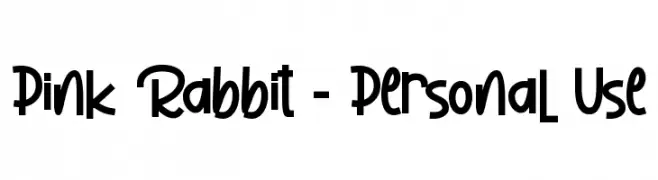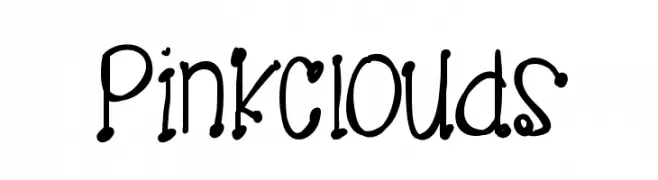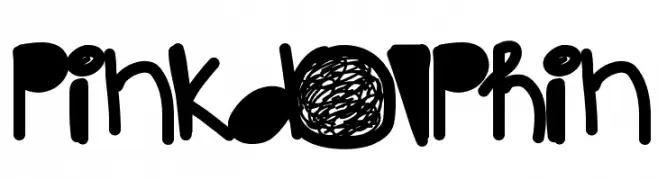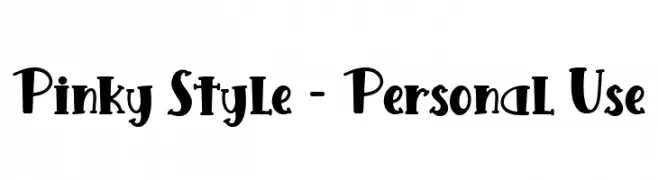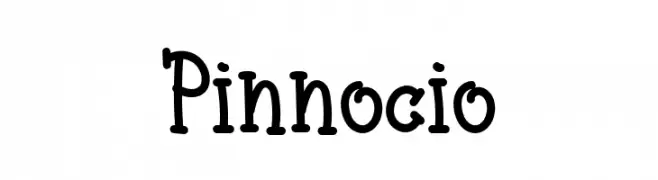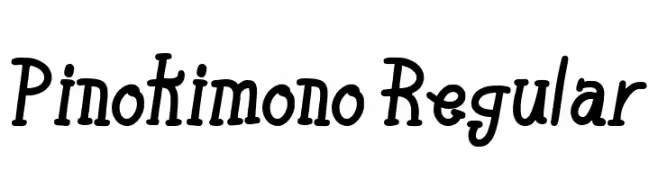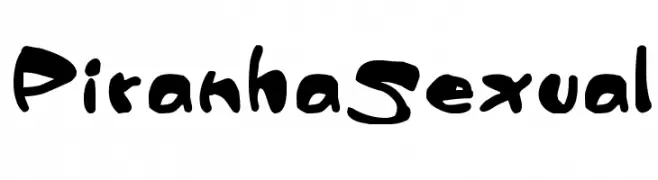
A playful, bold font with rounded characters and a lively style.
A playful, hand-drawn font with bold, whimsical characters.
A playful, handwritten font with rounded edges and artistic loops.
A bold, hand-drawn font with a playful, graffiti-like style.
A playful and whimsical font with bold, curvy letterforms.
A playful, heart-accented display font with a whimsical, hand-drawn style.
A playful, hand-drawn font with a whimsical and friendly style.
A playful, handwritten-style font with bold, rounded characters.
A playful, hand-drawn font with irregular, wavy strokes and a whimsical style.
A playful, bold, hand-drawn font with a whimsical and organic feel.